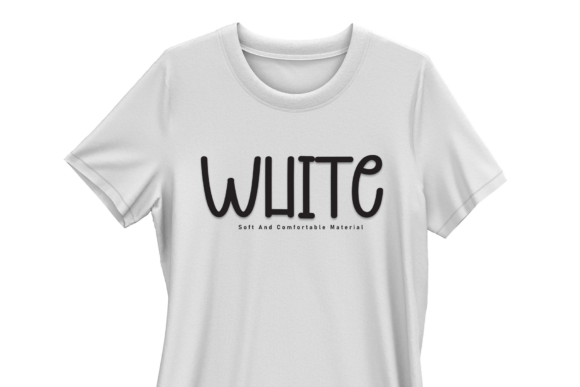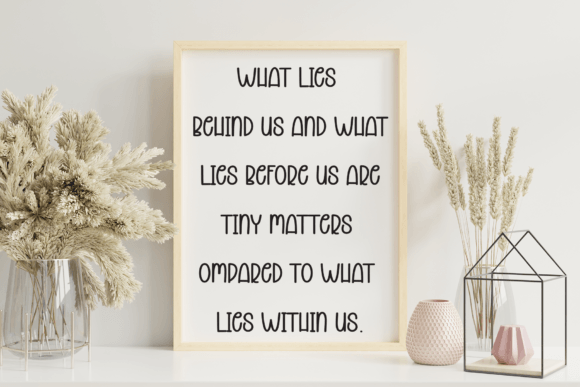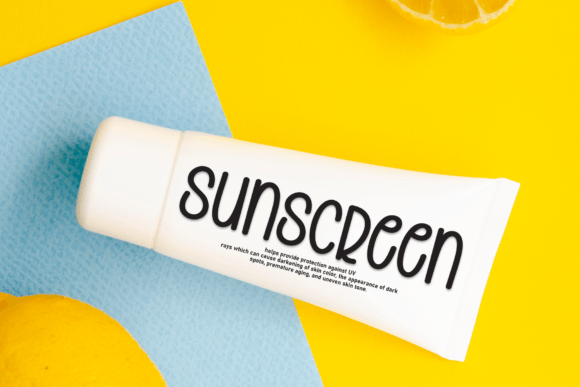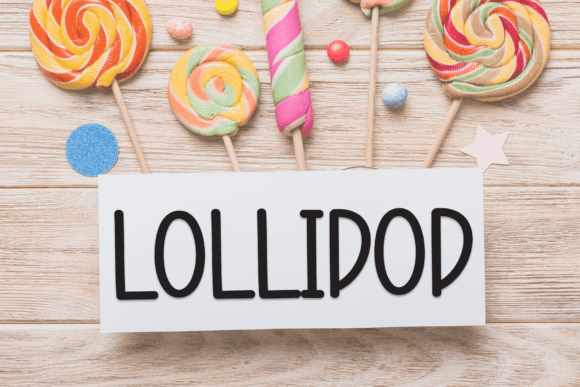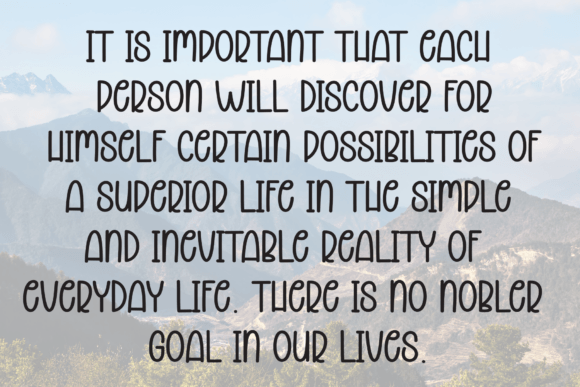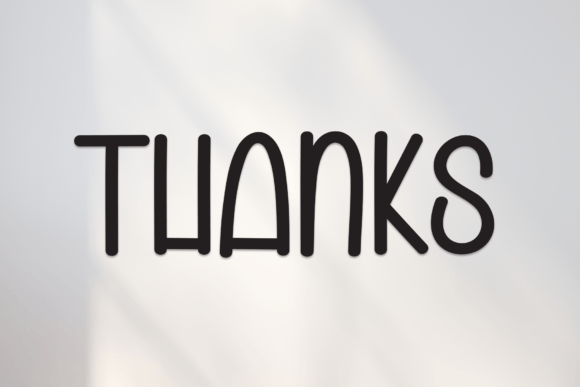
Introduction to Nothing Bold Font
Have you ever stumbled upon a font that makes your design instantly feel more inviting and joyful? For me, it’s a moment that sparks pure creativity and sets the tone for the entire project. As a designer, you know the importance of choosing the right font to convey your message and evoke the desired emotions. That’s where Nothing Bold Font comes in – a delightfully intimate handwritten font that adds a touch of warmth and friendliness to any design.
Perfect for crafting heartfelt wedding invitations, personalized cards, or any design that craves a dash of fun, Nothing Bold Font infuses a sense of enjoyment and playfulness into your visuals. With its high-quality design and transparent background, this font is a valuable resource for any designer looking to add a unique touch to their creative projects.
Key Features of Nothing Bold Font
- Unique, bold font style ideal for headings and titles.
Honest Review: Nothing Bold Font
I recently had the opportunity to work with the Nothing Bold Font for a creative project, and I must say I was quite impressed. This font has quickly become a design resource I rely on for its high quality and versatility.
- ✨ High level of detail and sophistication, perfect for modern designs
- ✨ Excellent legibility, even at smaller font sizes
- ⚠️ Limited character set, may not be suitable for extended texts or documents
- ⚠️ Not ideal for use in very small font sizes or low-resolution designs
Overall, I’m very pleased with the Nothing Bold Font and would highly recommend it to any designer looking for a high-quality, free font to add to their design arsenal.
Nothing Bold Font
Tips for Getting the Most Out of Nothing Bold Font
Use the Nothing Bold Font in combination with other design resources to create a cohesive and professional look. Experiment with different font sizes and colors to add depth and visual interest to your designs.
The Nothing Bold Font is perfect for use in logos, branding materials, and other creative projects where a clean and professional design is required. Its transparent background makes it easy to use in designs with complex backgrounds or multiple design elements.